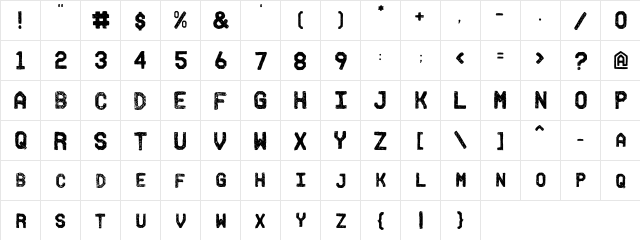
Fh_Ink Regular
| Foundry | Dan Meyer (Fictionalhead) |
| Designer | Dan Meyer (Fictionalhead) |
Design Context for Fh_Ink Typeface
Fh_Ink takes a measured approach to typography — its balanced proportions and neutral character make it a reliable workhorse for both digital and print work.